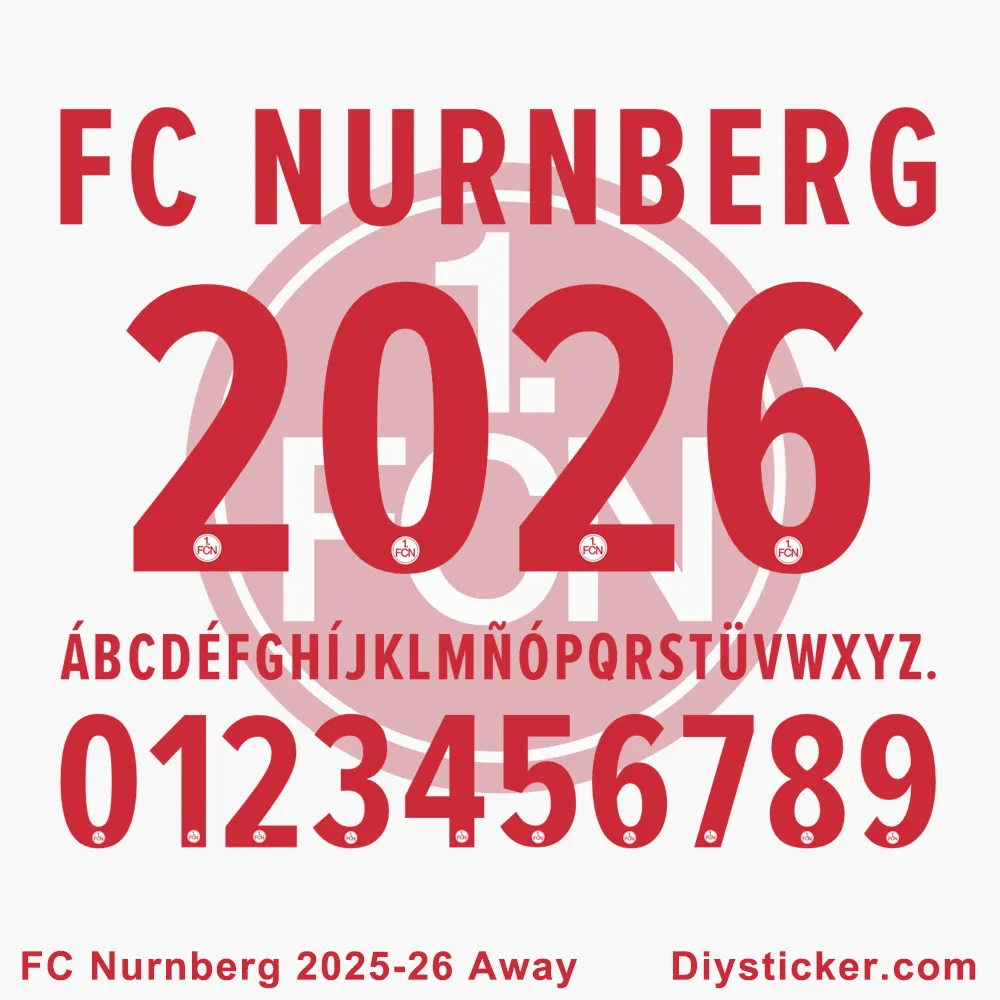
Represent the historic Der Club with the official FC Nurnberg 2025-26 Away Font. This is the authentic typeface used by the German club on its official kits, 2. Bundesliga graphics, and all communications for the new season.